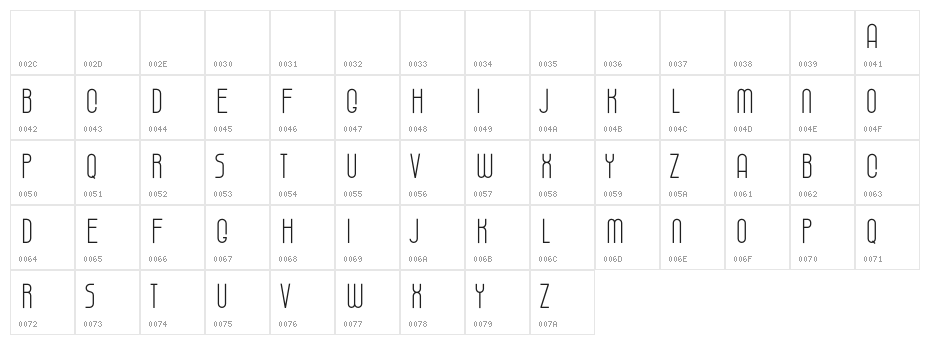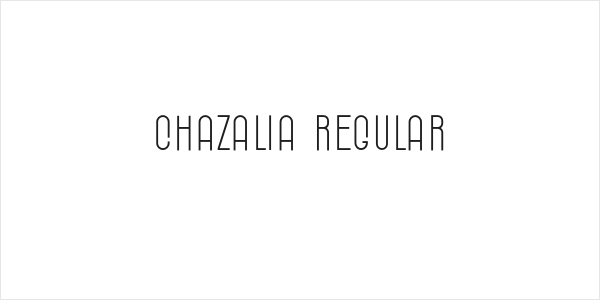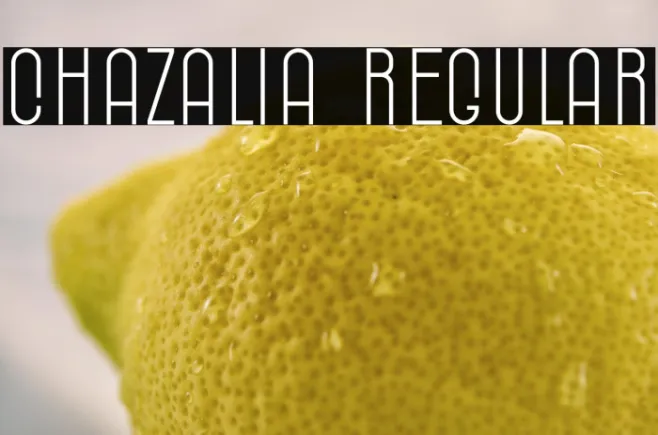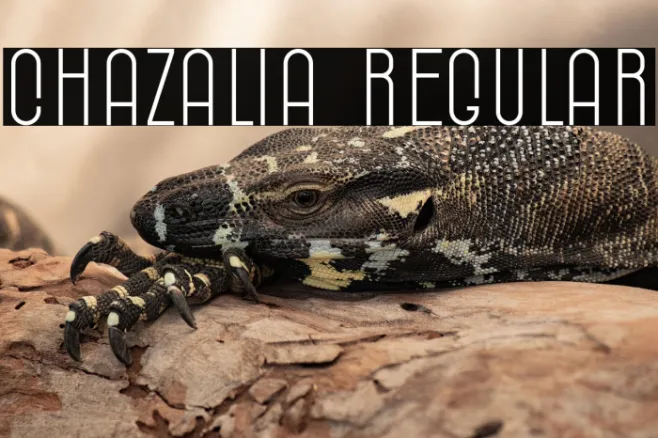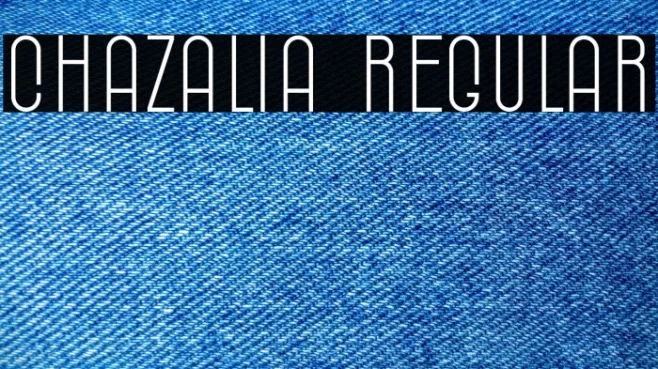
Chazalia Regular Font
Chazalia Regular Description
This font features a sleek, modern design with elongated, narrow characters that convey a sense of elegance and sophistication. The uppercase letters are uniform in height, with a consistent stroke width that gives the font a clean and minimalist appearance. The absence of serifs and the geometric construction of the letters enhance its contemporary feel. The font's vertical orientation and uniform spacing between characters make it highly legible, even at smaller sizes. Its distinctive style is ideal for projects that require a modern and professional look.
| Use Case | Headlines, Logos, Digital Interfaces |
| Proposed Projects | Ideal for branding, advertising, editorial design, and digital interfaces where a modern and professional appearance is desired. |